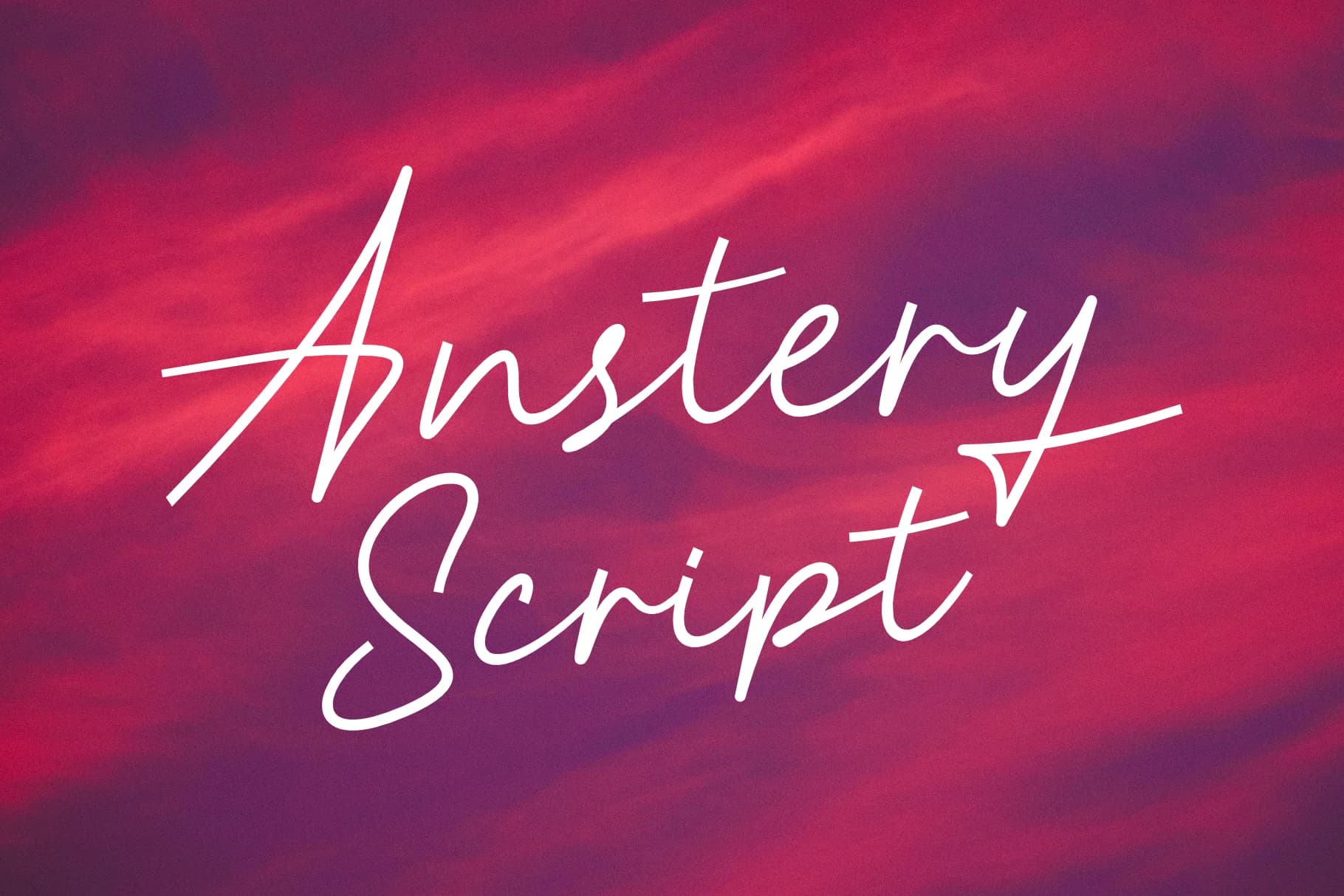
Anstery by windestrian is a flowing signature script that brings contemporary elegance to designs with an approachable, conversational feel. The font's organic letterforms and casual rhythm make it ideal for creating personal touches without sacrificing sophistication. With its clean execution and readable character spacing, Anstery works across multiple applications where a hand-penned aesthetic adds warmth and authenticity.
This script excels in intimate design contexts: personalized wedding invitation suites, handwritten-style greeting cards, custom product labels for artisanal goods, and social media quote graphics that demand a human touch. Whether layering it over photography or using it as a standalone headline, Anstery captures that balance between casual and refined that resonates with modern audiences. The font handles both short flourishes and longer passages comfortably, giving designers flexibility in how they deploy it.
Anstery works equally well on stationery, custom gift tags, and branding materials for small businesses seeking personality without pretension. Its signature script roots make it perfect for anyone who wants to inject genuine character into their visual communication. Find Anstery on Creative Fabrica and start bringing that natural, connected sensibility to your next project.
Anstery Font is a script font that shines as a display or heading face. Pair it with a clean sans-serif or serif font for body text β the contrast creates a clear hierarchy while the two styles stay balanced and easy to read.
Anstery Font